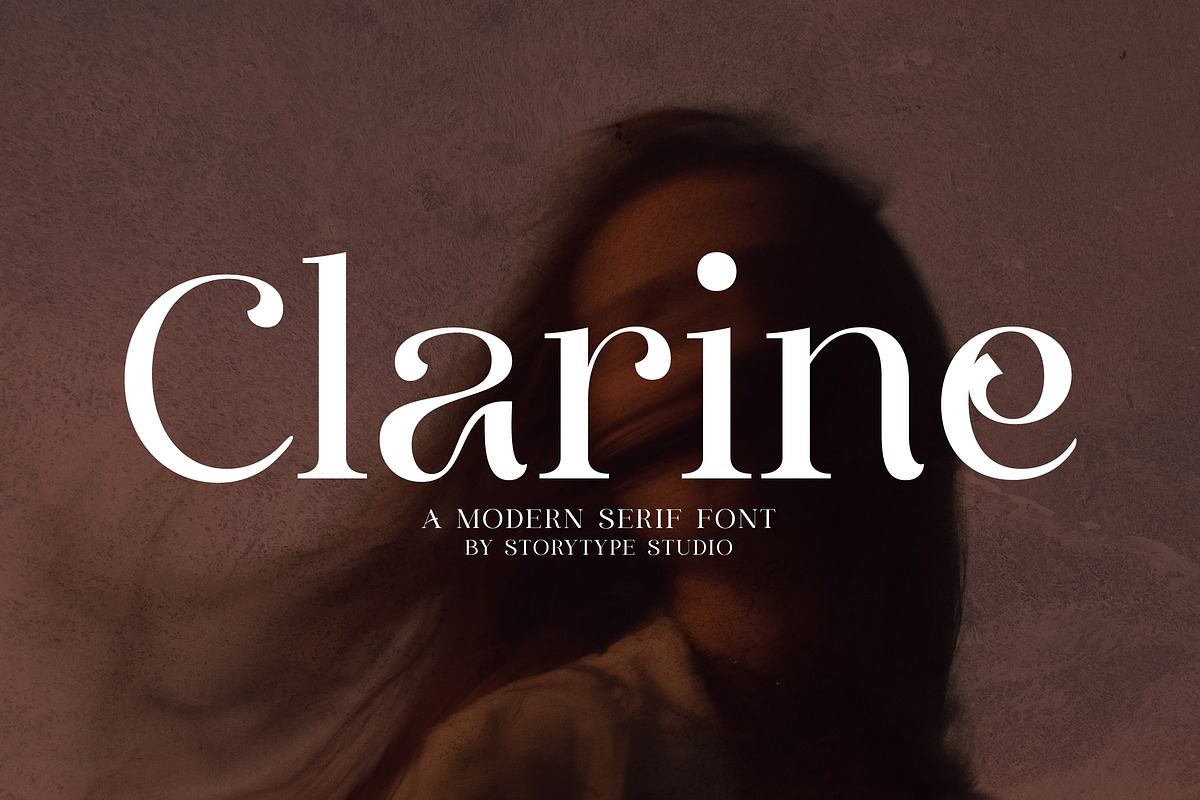
Clarine Modern Serif Font Free Download
Clarine Modern Serif Font Free Download is a stylish and elegant serif typeface that combines classic serif elements with a sleek, contemporary design. With its high contrast, clean lines, and sophisticated details, Clarine is perfect for luxury branding, editorial layouts, logos, headlines, and high-end product packaging.
The font exudes refinement and professionalism while maintaining a modern, approachable aesthetic. Its versatility makes it suitable for both traditional and cutting-edge designs, making it a great choice for a wide range of creative projects.